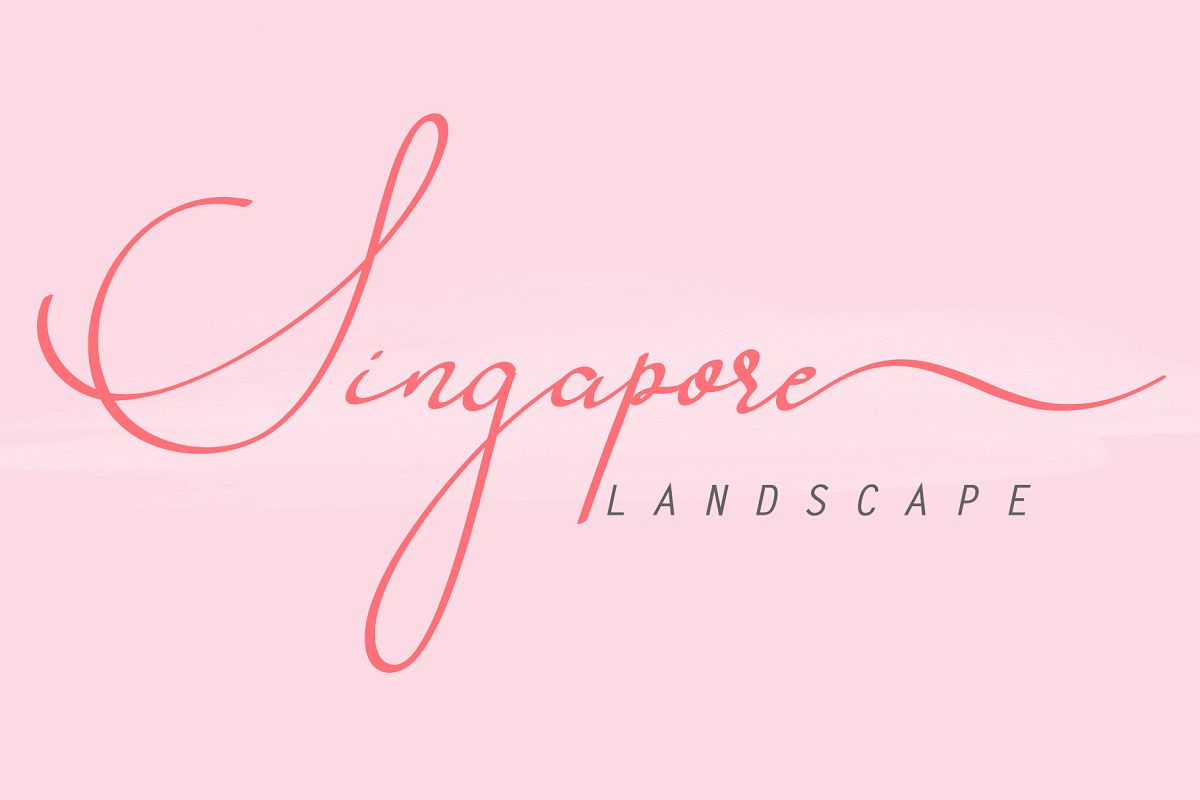
Singapore Landscape
Singapore Landscape is a font with simple and classy taste, comes with Elegant Beginning and Ending tails (Swash & Titling), also has opentype features such as ligatures. We keep this font looks classy, readable, elegant, stylish, catchy and absolutly easy to use.Singapore Landscape is the great choice for watermark on photography, signature or signature logo design, album cover, business card, quotes, and many other design project.
Each font has:
• Stylish handwritten style
• Special Ligatures
• Special Swash (Beginning Tails)
• Special Titling (Ending Tails)